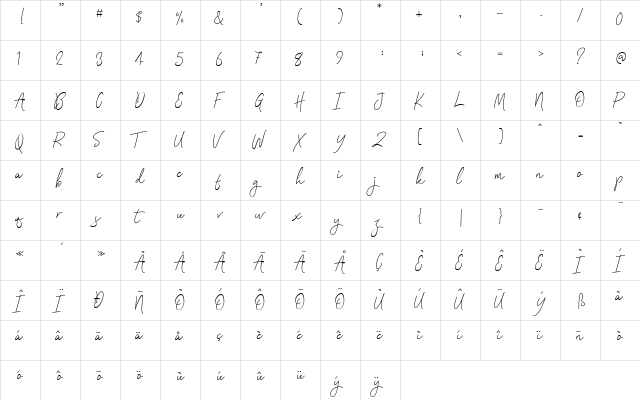
Signatura Monoline Script Regular
| Foundry | Ianmikraz |
| Designer | Ianmikraz |
Design Context for Signatura Monoline Script Typeface
Signatura Monoline Script flows with the natural rhythm of handwritten lettering, making it ideal for designs that call for warmth and personal expression.
Font Pairing: Combine Signatura Monoline Script with a simple geometric sans for maximum contrast — the tension between flowing curves and clean structure is a classic typographic pairing.
Pro Tip: Pair Signatura Monoline Script with a clean sans-serif for supporting text. The contrast between fluid script and geometric structure creates an elegant typographic hierarchy.